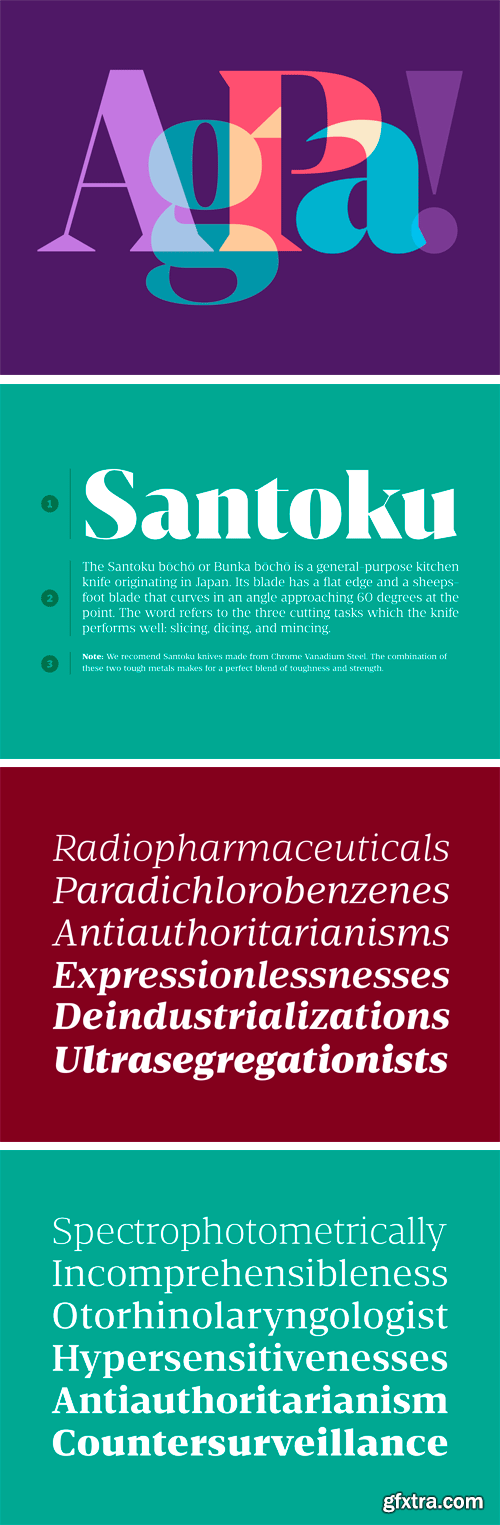
Striver Text Font Family
The text version saw it's proportions readjusted and it's typographic details relegated to the background, with more neutral letterforms to ensure legibility. For the very same reason, we chose to accompany this style with a classical italic.